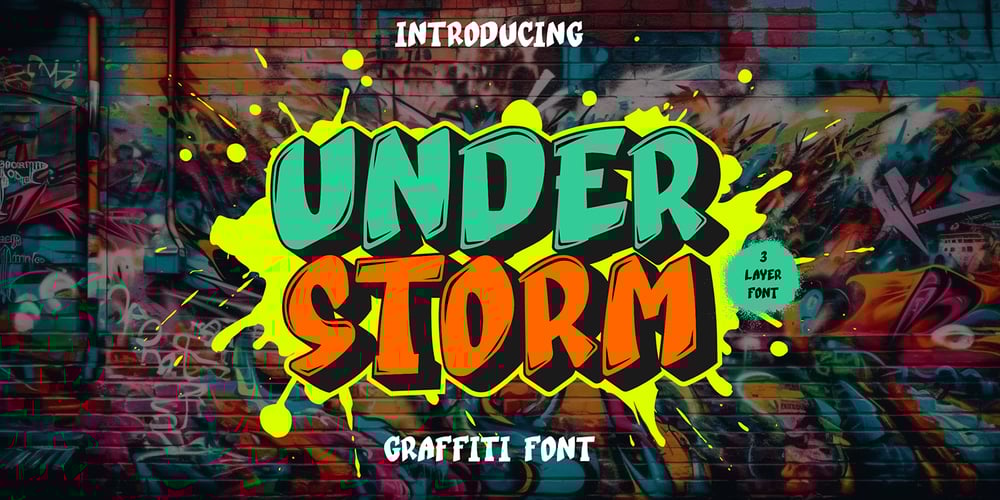
Under Storm 3d Graffiti Font Family was designed by Sipanji and published by Sipanji21. Under Storm 3d Graffiti contains 3 styles and family package options. “Under Storm” is a graffiti font with three unique layers: regular, inner shadow, and outer shadow. This font is designed to add depth and dimension to your typography, creating a captivating and dynamic look. The regular layer provides a bold and impactful appearance, while the inner and outer shadow layers add a 3D effect, giving your designs an edgy and urban vibe. With its layered style, “Under Storm” is perfect for creating eye-catching street art, posters, and other urban-themed projects. Embrace the storm of creativity with this versatile and dynamic graffiti font.